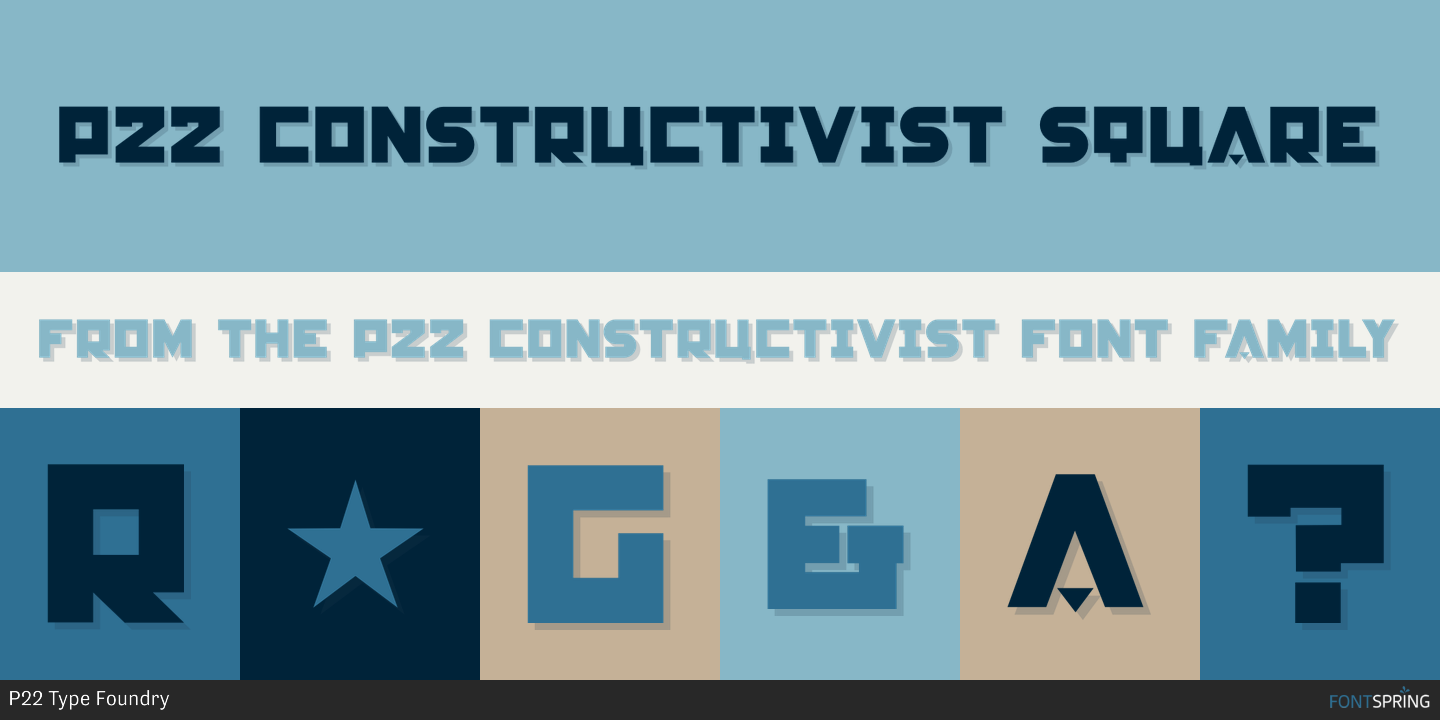
P22 CONSTRUCTIVIST SQUARE
P22 Constructivist is a dingbat and novelty font family. This typeface has six styles and was published by P22 Type Foundry.
Typefaces recreate the bold graphic design of early Soviet Era Russian Artists such as Rodchenko and Popova.